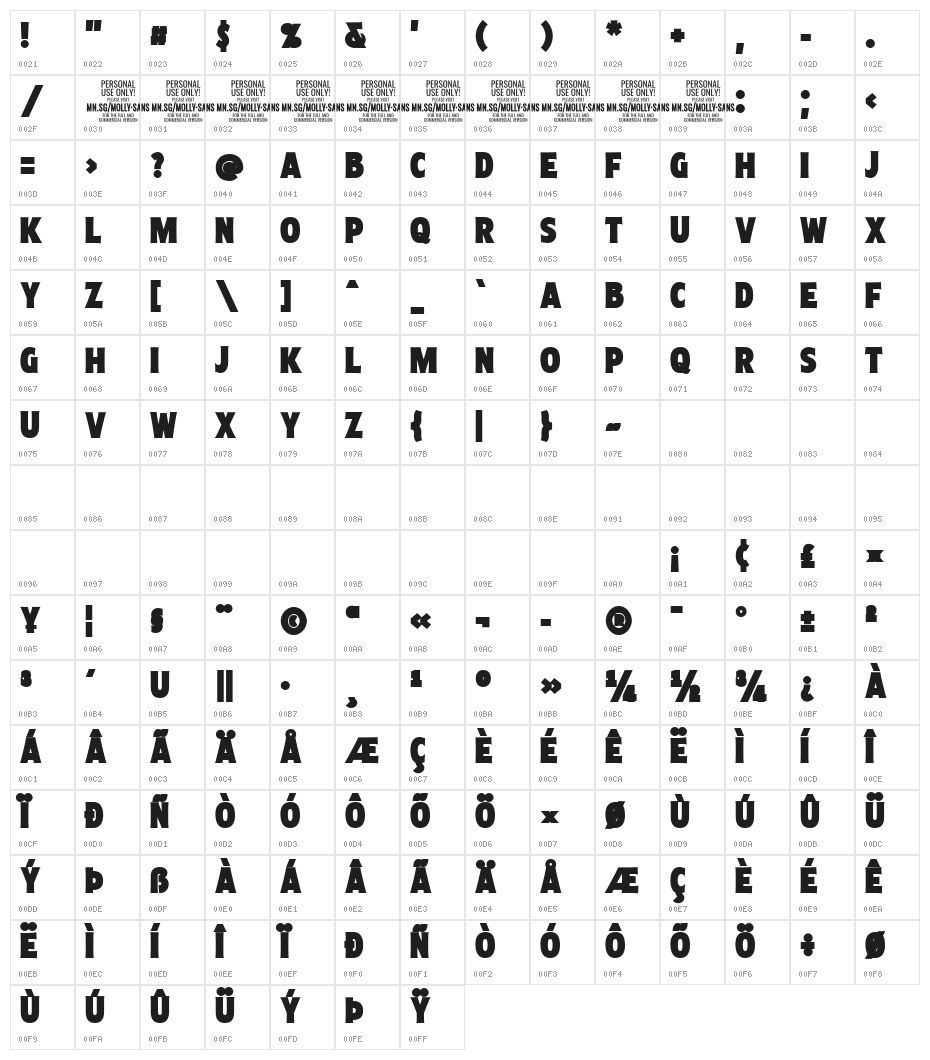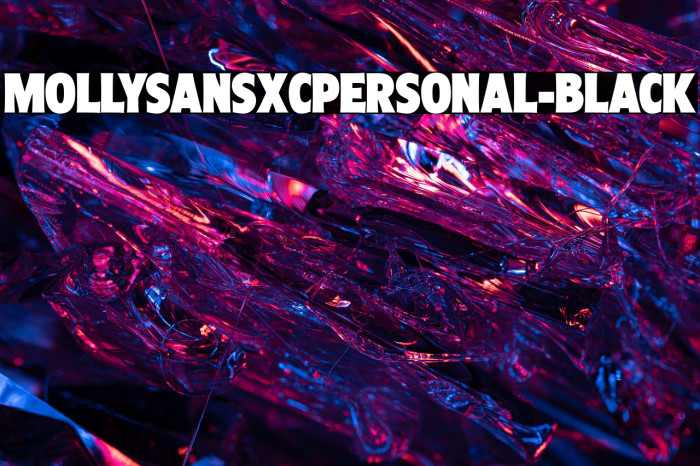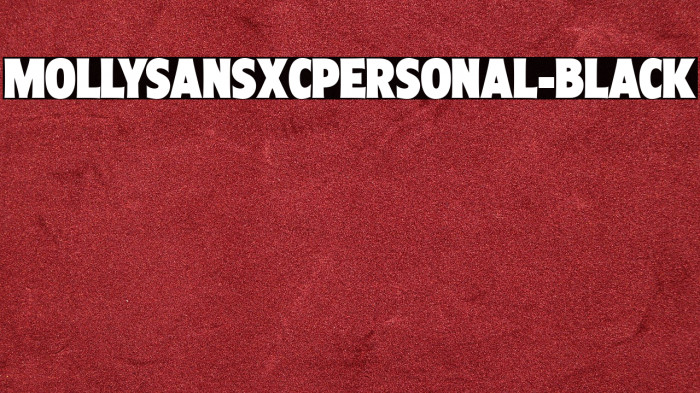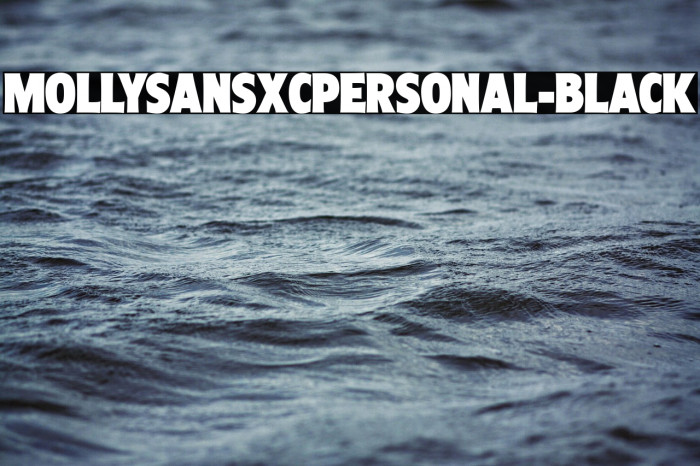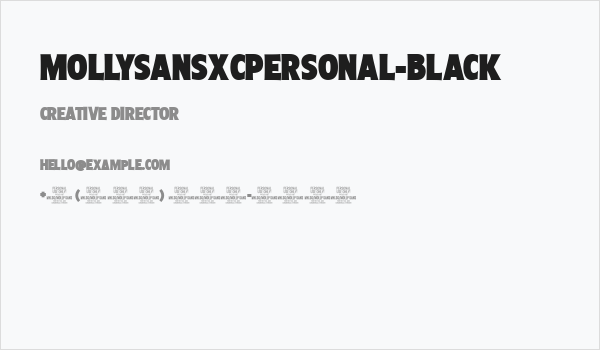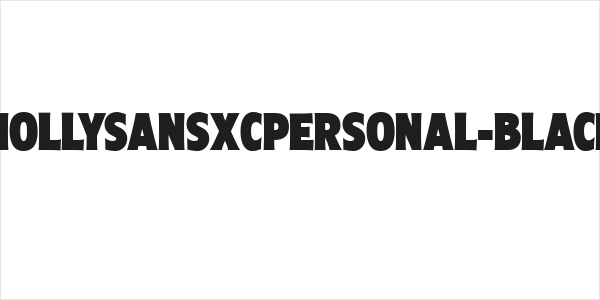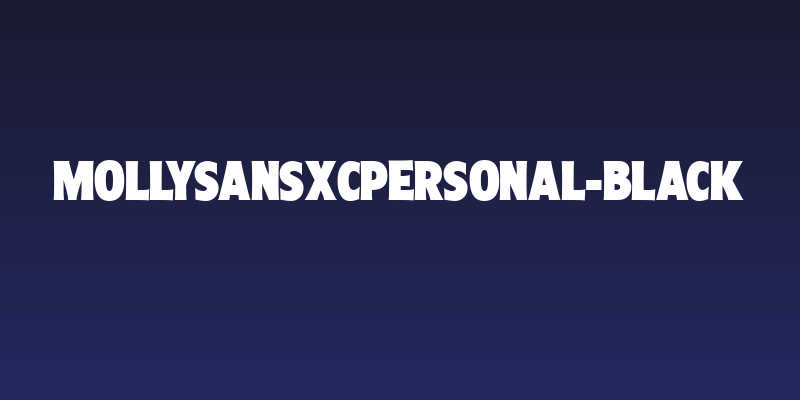
MollySansXCPERSONAL-Black Font
MollySansXCPERSONAL-Black Description
This font features bold, thick strokes with a strong presence, making it ideal for attention-grabbing headlines and impactful designs. The characters are uniformly wide, with a slightly condensed appearance that enhances their boldness. The uppercase letters are particularly striking, with a modern and edgy style that conveys confidence and strength. The lowercase letters maintain the same boldness, ensuring consistency across different text elements. The numerals and special characters are equally robust, providing a cohesive look throughout. This font's overall style is modern and decorative, suitable for projects that require a bold statement.
| Proposed Projects | Ideal for headlines, posters, branding, and any design that requires a strong visual impact. |